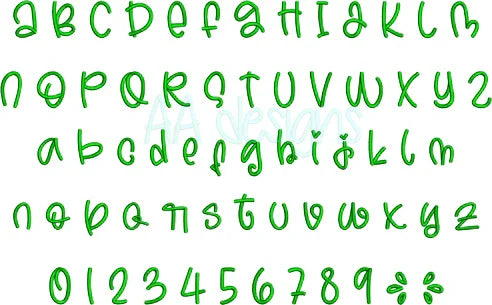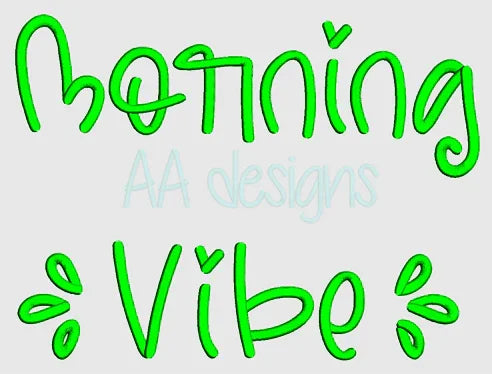
Start every project with good vibes. The Morning Vibe Font brings a relaxed, modern style to monograms, tote bags, apparel, mugs, and personalized gifts.
- ✅ Full character set: uppercase, lowercase, numbers 0–9